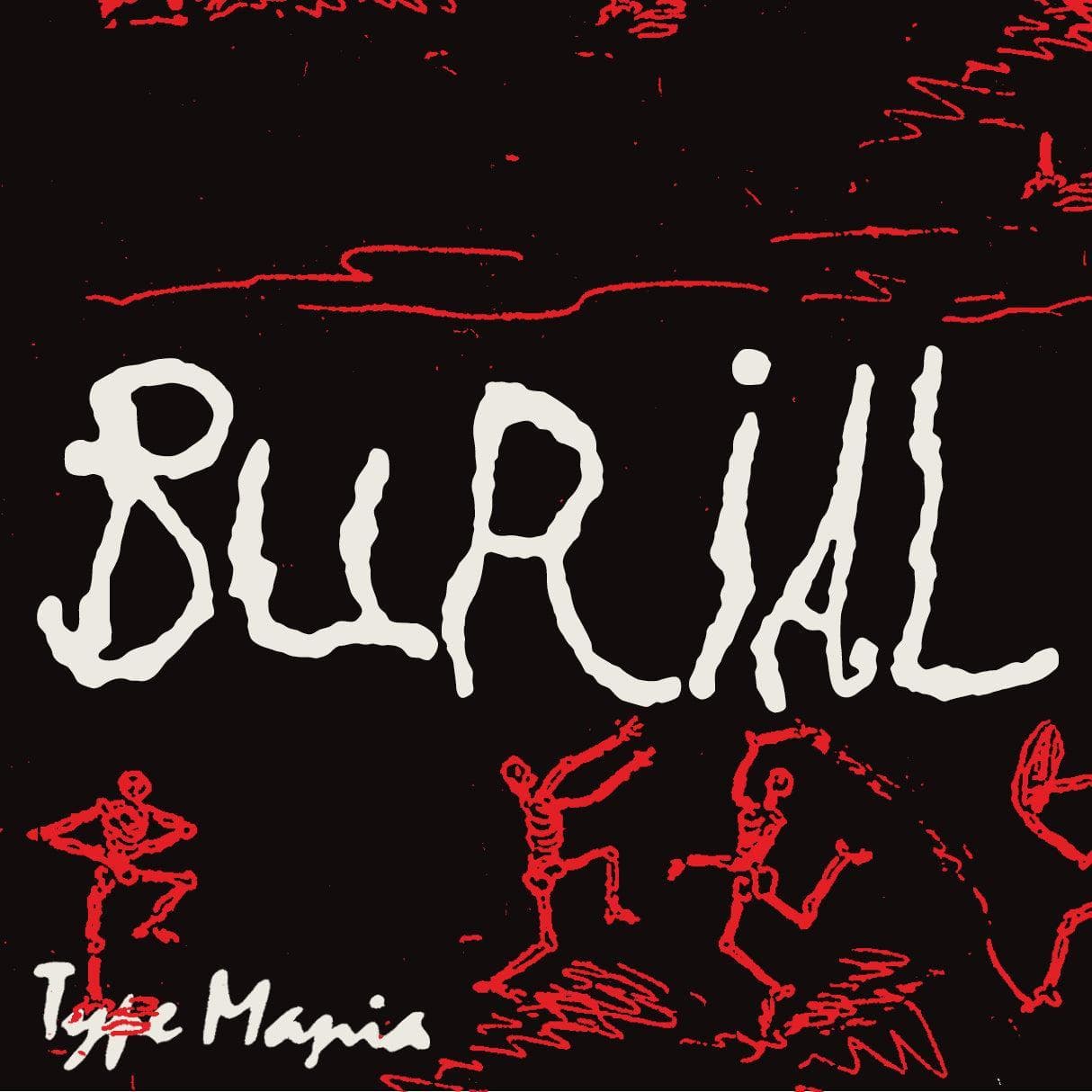
<p>Doomy type for our dark times... <strong>Burial TM</strong> doesn’t speak louder, it just stays longer. GLTA 🕷️</p> <p><strong>Zip includes</strong></p> <ul> <li>OTF file</li> <li>TTF file</li> <li>WOFF2 file</li> </ul> <p><strong>Languages</strong></p> <ul> <li>Basic Latin</li> <li>Western European</li> <li>Euro</li> <li>Central European</li> <li>Pan African Latin</li> </ul> <p><em>Graphic Design is Easy (with Type Mania)®</em></p>